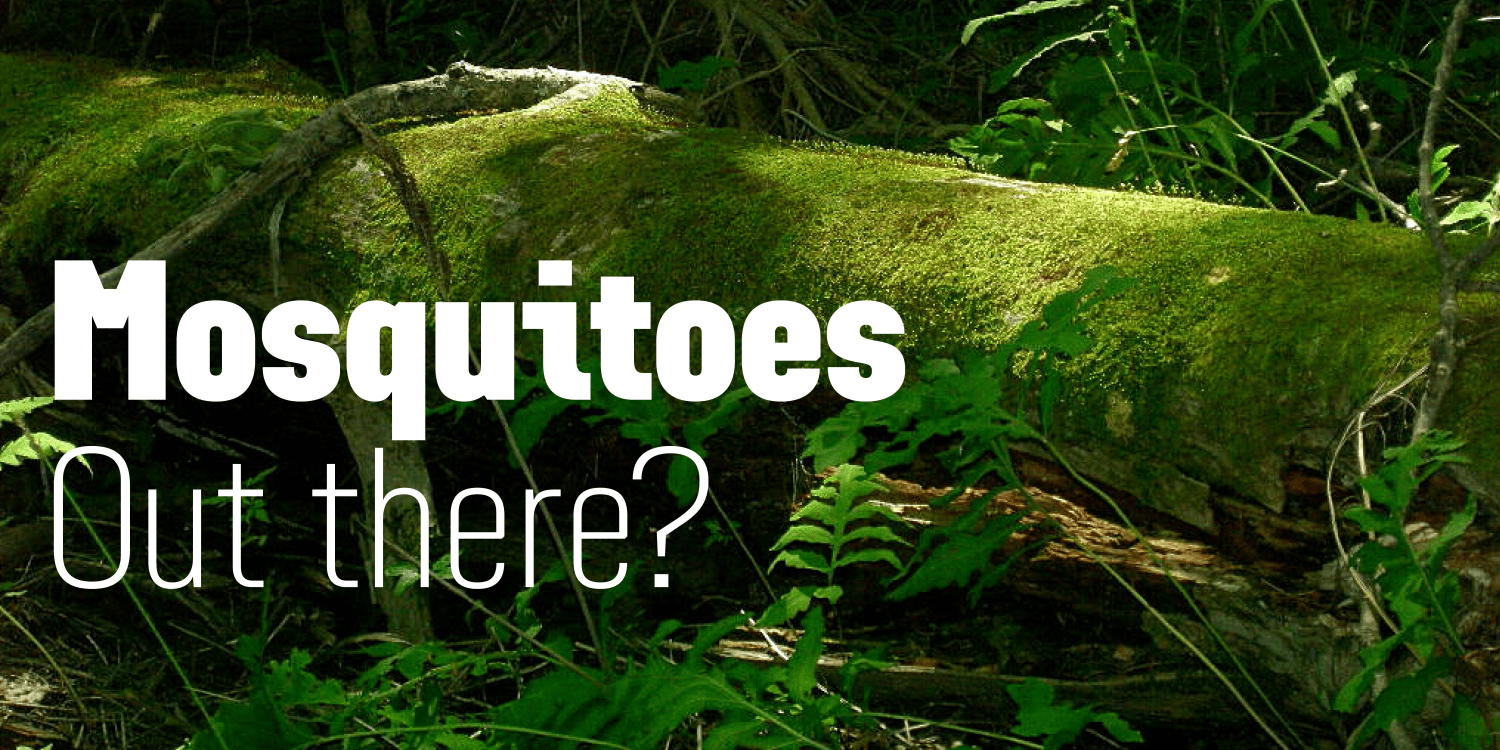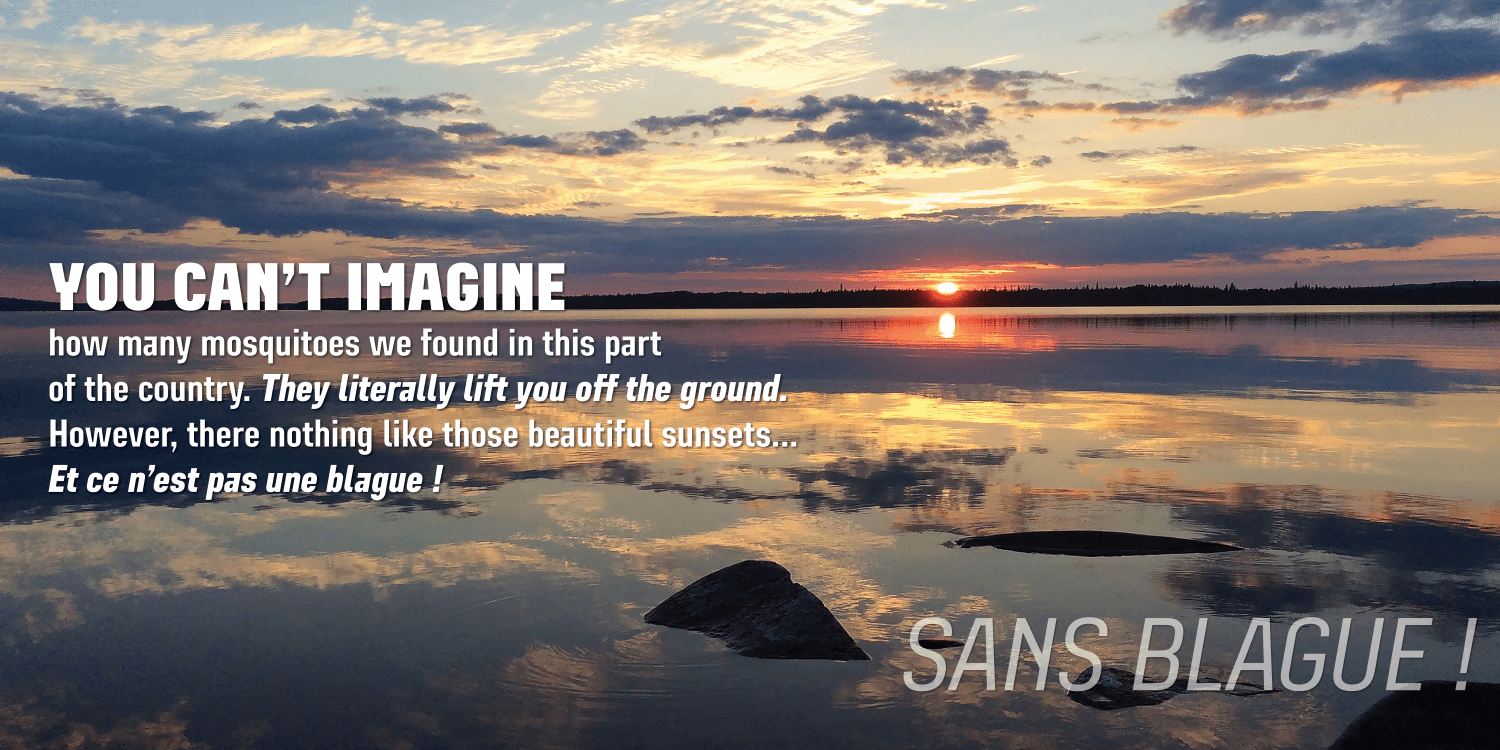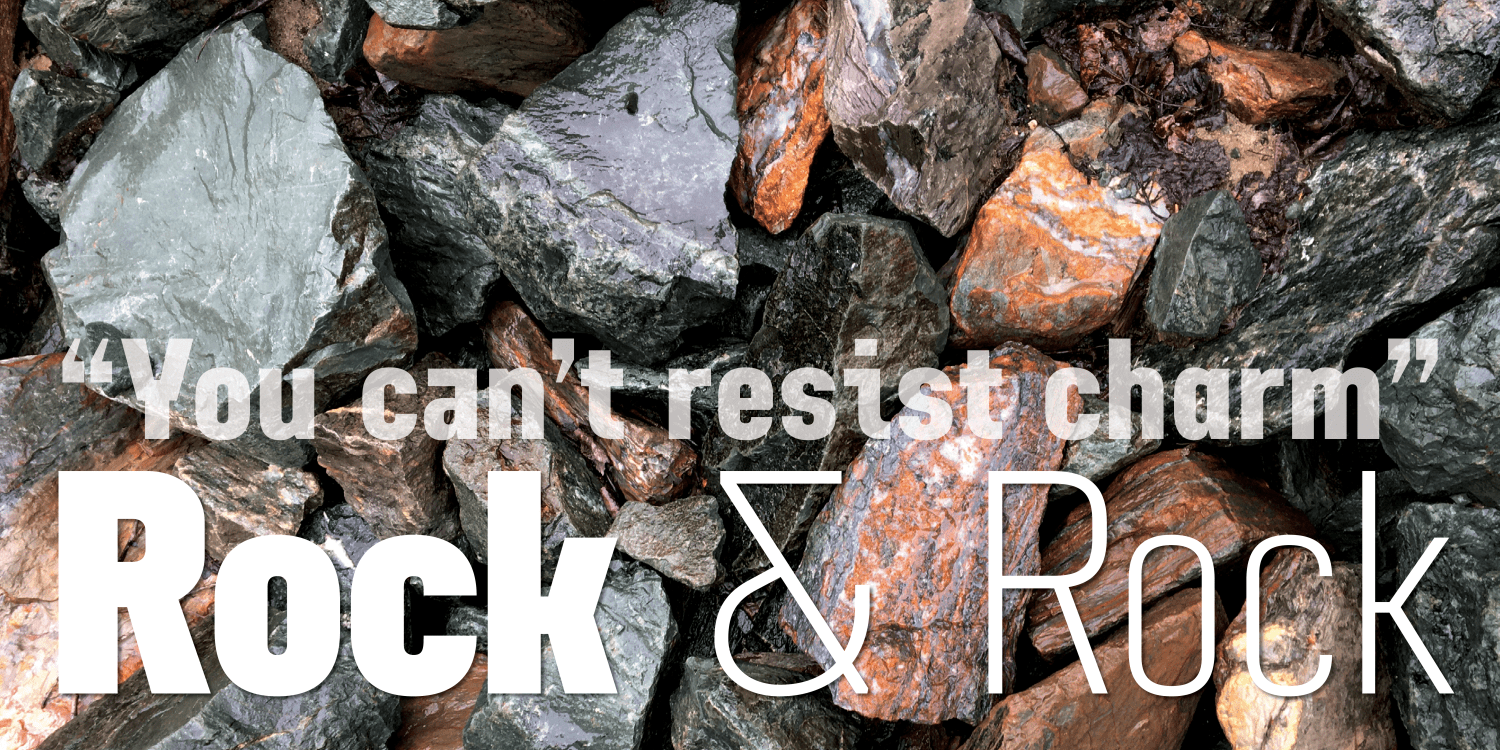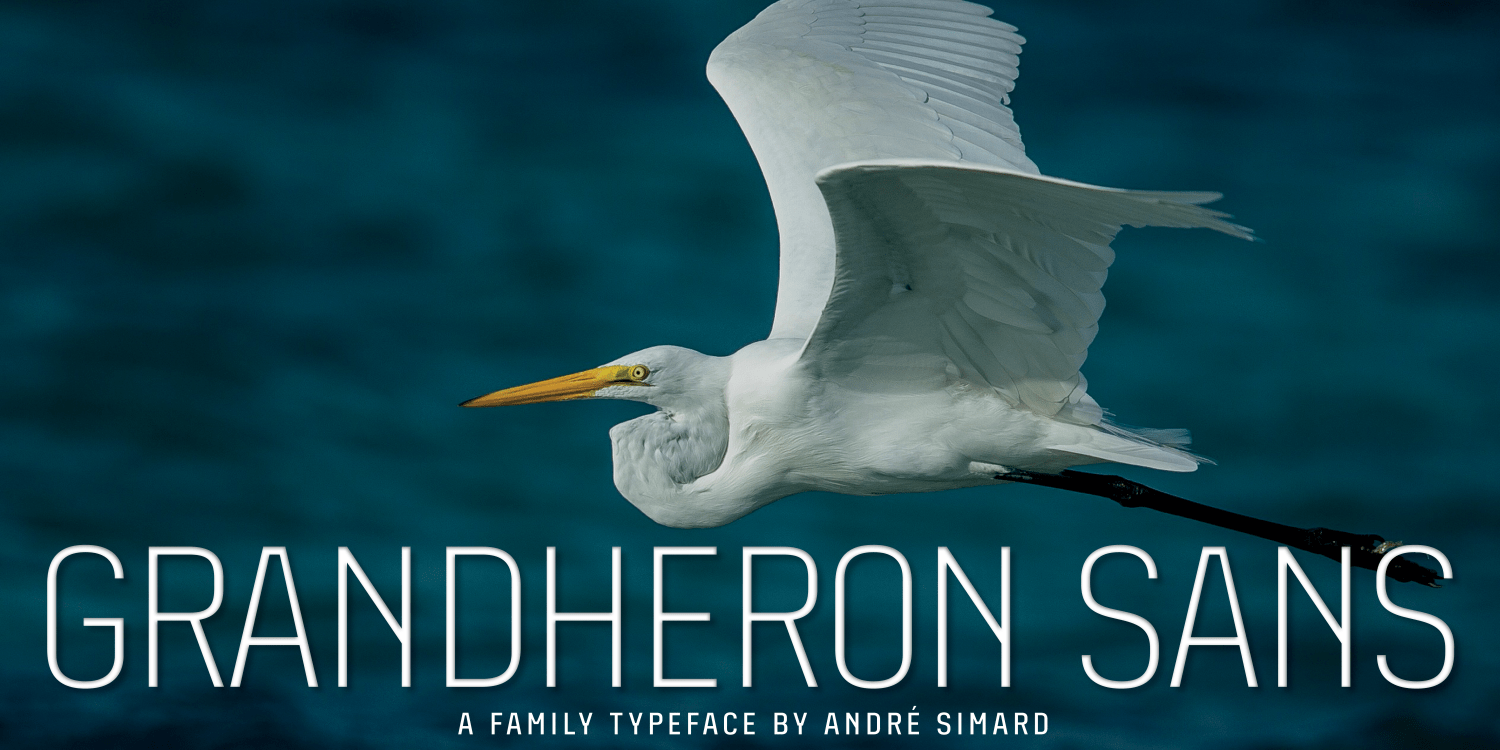
About Grandheron Sans New
If you are looking for a font with very good readability, even with its square appearance and condensed design, Grandheron is for you. You should find attractive the design of some glyphs like those one [a,f,k,l,v,y, AJKMNVXY] to name a few. Grandheron…